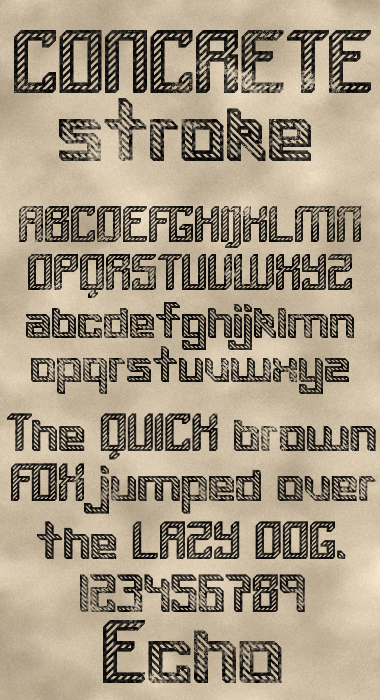
You have put so much work into this that I am hesitant about commenting. However, I think the opposing diagonals of the UC and lc make this a bit discordant. Perhaps it would be better to have two fonts - one with left to right diagonals and one vice-versa.
I think you're probably right. I did a-e with the other stroke. Another fontstructor's opinion would be highly appreciated before I go and change all of them over to this way (so I don't spend too much time on this for nothing.)
I really like this font! Sometimes contrasts bring out readability, especially if the spacing is close as this one is.